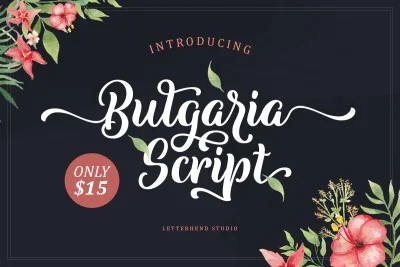
Bulgaria Script Font is widely used in Eastern European restaurant branding, traditional cultural event materials, heritage tourism posters, folk art projects, ethnic festival signage, cultural center communications, traditional craft packaging, and authentic regional design applications.
Bulgaria Script Font is an exciting typeface that celebrates Balkan cultural heritage with its flowing elegance and traditional charm. This font embodies cultural richness, historical tradition, and regional authenticity, making it perfect for brands that want to convey heritage pride, cultural depth, and Eastern European sophistication in their culturally-inspired visual communications.
The Bulgaria Script Font family consists of Regular, Bold, Light, Italic, Ornate, Traditional, Condensed, and Folk variants. This cultural collection provides designers with multiple expressions of Balkan authenticity to match different heritage themes and traditional cultural applications.
Bulgaria Script Font Free Download offers exceptional cultural authenticity for designers working with heritage and traditional brands. The font's elegant character and regional styling create an immediate sense of cultural pride and historical significance. This typeface excels in projects where tradition, cultural heritage, and authentic regional identity must connect with audiences who appreciate Eastern European culture and historical craftsmanship.
The distinctive heritage of Bulgaria Script Font lies in its ability to capture the flowing beauty of traditional Balkan calligraphy and the rich cultural traditions of Eastern Europe. Each letterform maintains the graceful curves and ornamental details that reflect centuries of regional artistic tradition and cultural expression. The font's elegant flow and cultural character create visual celebration that honors the sophisticated heritage of Bulgarian and broader Balkan cultural identity.
Cultural organizations and heritage brands choose Bulgaria Script Font for its power to communicate authentic regional pride and traditional elegance. The typeface works beautifully in cultural museum branding, traditional restaurant communications, folk festival promotions, and heritage tourism materials. Its cultural aesthetic appeals to audiences who appreciate regional traditions, historical authenticity, and the rich artistic heritage of Eastern European culture.
The cultural craftsmanship of Bulgaria Script Font includes traditional flourishes and regional variations that enhance the natural elegance of Balkan script typography while maintaining the cultural character essential to heritage communication. These authentic features ensure that text maintains the traditional flow and cultural distinction that defines legitimate regional branding while meeting professional standards for commercial applications in the cultural tourism and heritage industries.